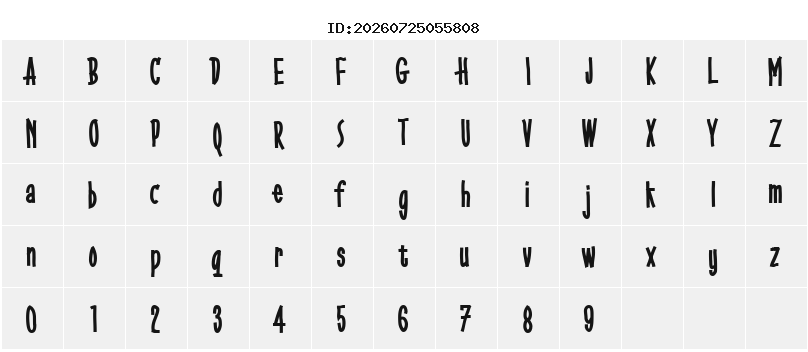
Gobbledegook Preview
• Font Name: Gobbledegook
• Font ID: Gobbledegook
• Full Font Name: Gobbledegook
• Version: Gobbledegook 1 4/24/00
• PostScript Name: Gobbledegook
• Character Count: 185
• Copyright: Tup Wanders
• Designer: Tup Wanders
About Gobbledegook.ttf
Gobbledegook.ttf is a modern, elegant sans-serif font designed for ultimate readability and visual harmony. Perfect for branding, headlines, web design, and print materials.